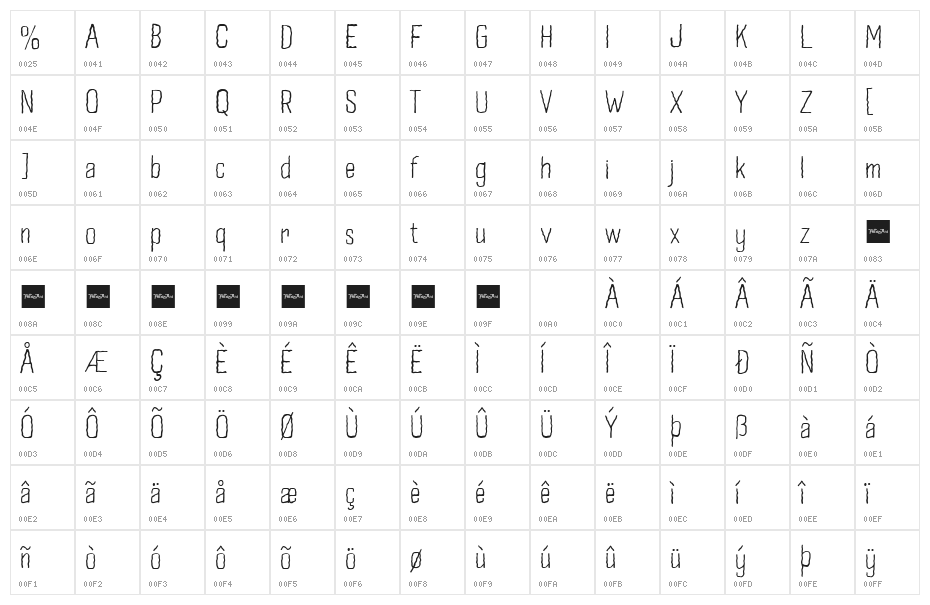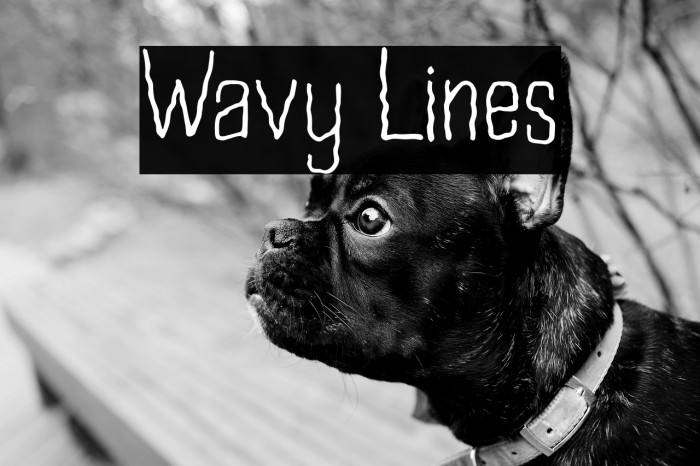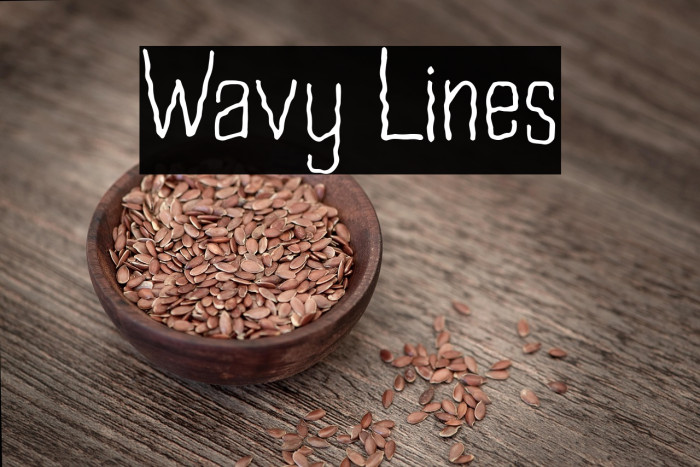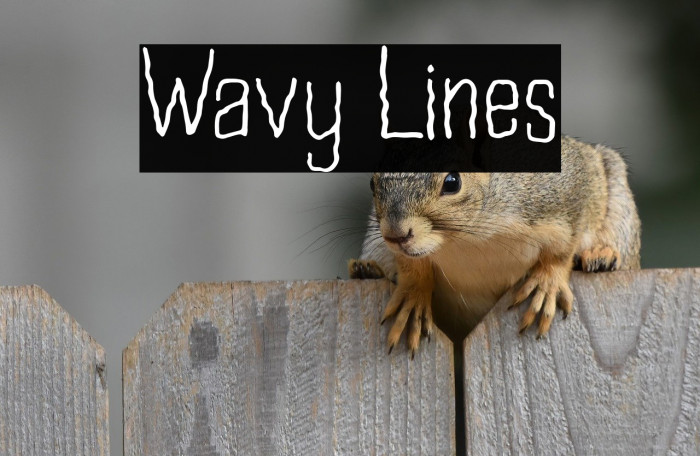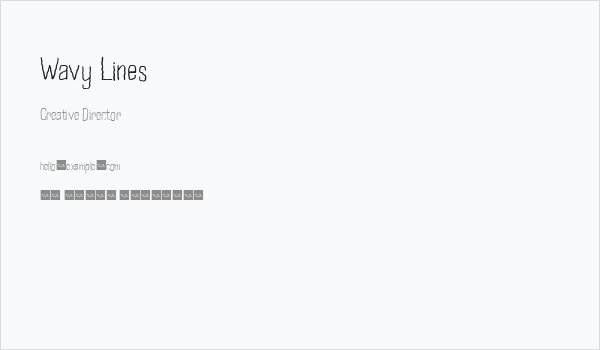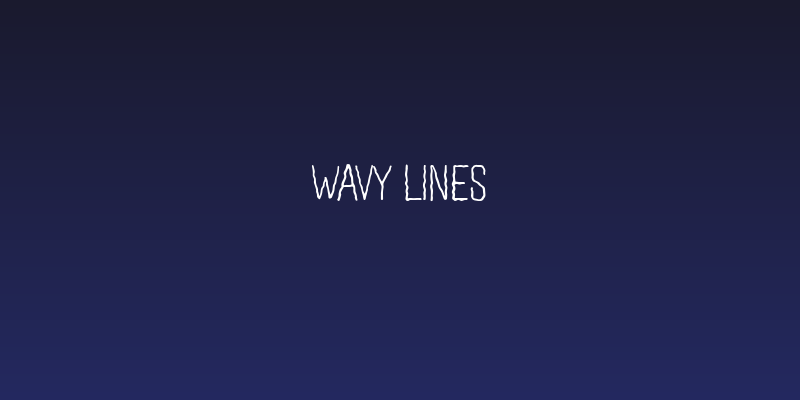
Wavy Lines Font
Wavy Lines Description
This font features a unique wavy line design that gives it a hand-drawn, organic feel. The characters are slightly irregular, adding a playful and whimsical touch. Each letter maintains a consistent height, but the wavy lines create a sense of movement and fluidity. The font is legible and distinct, making it suitable for creative projects that require a touch of individuality. The uppercase and lowercase letters are well-balanced, and the numbers and special characters follow the same wavy pattern, ensuring a cohesive look across all text elements.
| Overall Style | Playful, Artistic |
| Proposed Projects | Ideal for children's books, creative posters, artistic branding, and playful invitations. |